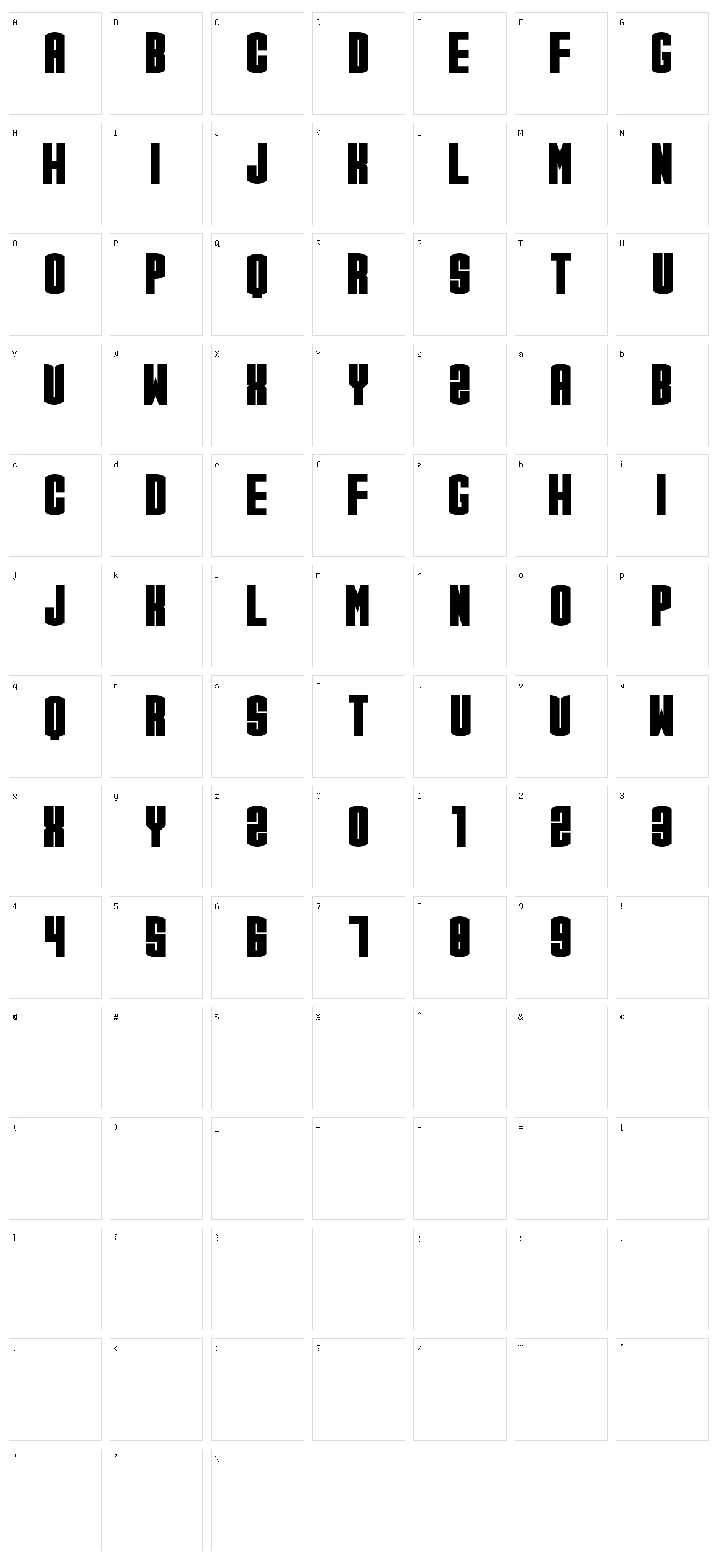
CGF Arch Reactor FONT!
This Font was made to replicate the Iron Man logo and Is my personal interpretation of the logo(Not a copy of IRON HERO) Enjoy!